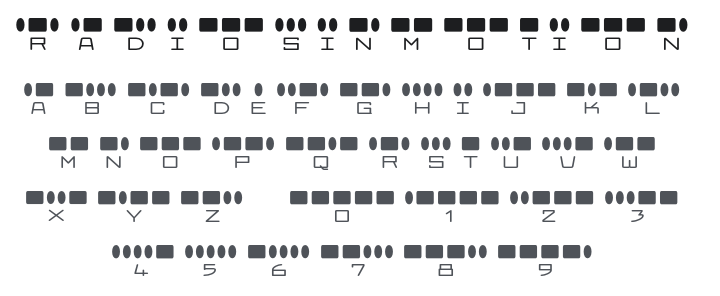
Radios in Motion Font Family
About Radios in Motion
Radios in Motion is a novelty display typeface where every letter is constructed entirely from Morse code — dots and dashes arranged and stacked into readable letterforms. It comes in two variants: Regular (easier to read) and Hard (more authentic to actual Morse patterns). Perfect for military-themed designs, spy aesthetics, radio communication branding, retro telegraphy posters, and any project needing a clever, code-based typographic twist.